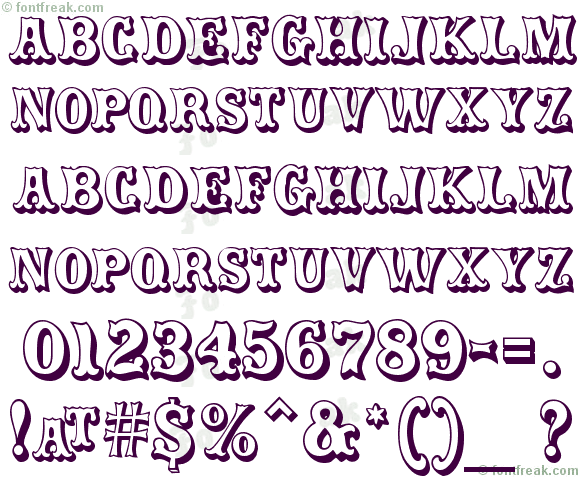
CarnivalMF OpenShadow
Carnival Rimmed
About Carnival
Carnival is a striking display font designed by Richard Mueller, offering a unique aesthetic that captures the playful spirit of festivities. This decorative typeface is characterized by its bold stroke weight and rounded, rimmed edges, which evoke a sense of whimsy and celebration. The visual style features a delightful interplay of shadow and light, giving the letters a three-dimensional quality that stands out on any backdrop. The spacing between letters is well-balanced, allowing for easy readability while maintaining its decorative flair.
The Carnival font is perfect for a variety of creative projects. It can be effectively used for vibrant wedding invitations, where its playful nature adds a touch of joy and celebration. Movie posters also benefit from its eye-catching design, making titles pop and attracting attention. Restaurant menus can incorporate this font to create a fun and inviting atmosphere, especially for establishments with a casual or festive theme. Additionally, it works well in promotional materials for events, fairs, or parties, where a lively vibe is essential to capture the audience's interest.
What sets the Carnival font apart is its ability to blend playfulness with professionalism. Its unique decorative elements not only draw the eye but also evoke a sense of nostalgia and joy, making it a standout choice for any project requiring a touch of whimsy. For those interested, the Carnival font free download is readily available, opening the door for limitless creative possibilities.